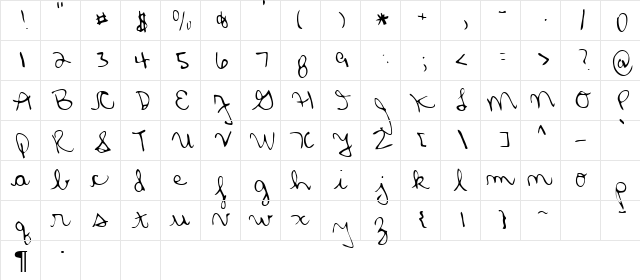
Ian Regular Free Font
Ian Regular
Ian Regular Family
Ian Regular
Design Context for Ian
Ian is a composed and adaptable typeface that performs quietly and consistently across a wide range of design contexts.